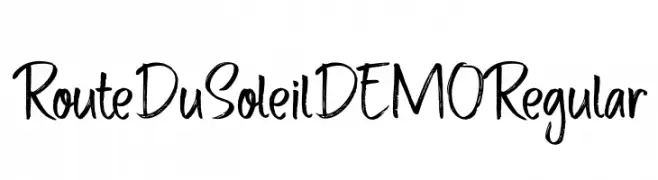
A playful and dynamic handwritten font with a casual, artistic flair.
A dynamic, expressive handwritten font with fluid, cursive strokes.
A bold, expressive script font with dynamic, flowing strokes.
A lively, handwritten script font with expressive, flowing characters.
A fluid and graceful script font with a modern, elegant style.
A lively, handwritten script font with fluid, connected strokes.
A playful, handwritten font with a casual and dynamic style.
A dynamic and flowing script font with elegant, cursive letterforms.
A bold, expressive script font with a lively, handwritten style.
A playful, handwritten font with smooth curves and a casual style.
An elegant, flowing script font with intricate loops and swirls.
A lively, expressive handwritten font with fluid, dynamic strokes.
A playful, handwritten-style font with medium contrast and dynamic curves.
A bold, handwritten font with a playful and artistic style.
A dynamic and expressive handwritten font with fluid strokes and playful curves.
A bold, rounded, and slightly slanted font with a playful and modern aesthetic.
A bold, handwritten-style font with playful curves and a dynamic feel.
A lively and expressive handwritten font with fluid, dynamic letterforms.
A whimsical and elegant script font with flowing, interconnected letters and decorative flourishes.
A cursive, handwritten-style font with elegant, flowing characters.
A lively and expressive handwritten font with dynamic strokes.
A playful cursive font with smooth, continuous strokes and a handwritten feel.
A flowing cursive font with elegant loops and a handwritten style.
An elegant, flowing script font with a classic and sophisticated style.
An elegant, flowing script font with whimsical loops and dynamic forms.
A dynamic and flowing script font with elegant, cursive letterforms.
A stylish and elegant script font with flowing, connected letterforms.
A whimsical, elegant handwritten font with playful curves and loops.
A fluid, elegant script font with a casual handwritten style.
A dynamic, expressive handwritten font with fluid cursive letterforms.
An elegant, flowing script font with smooth, cursive strokes and sophisticated loops.